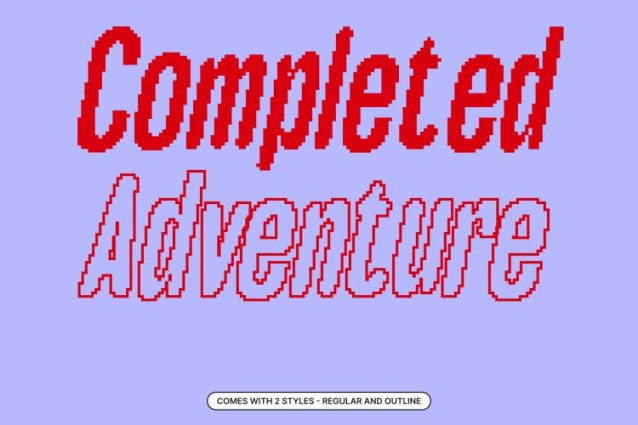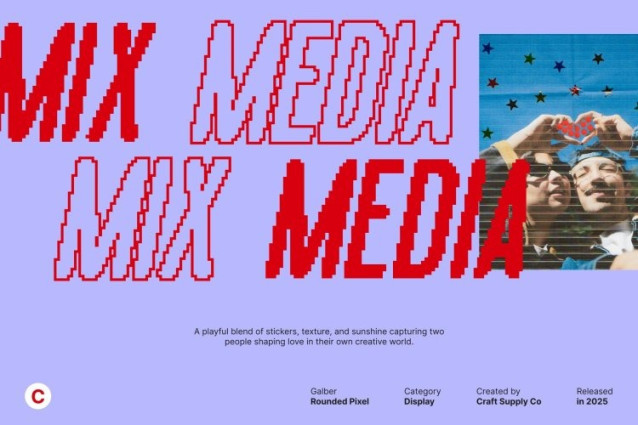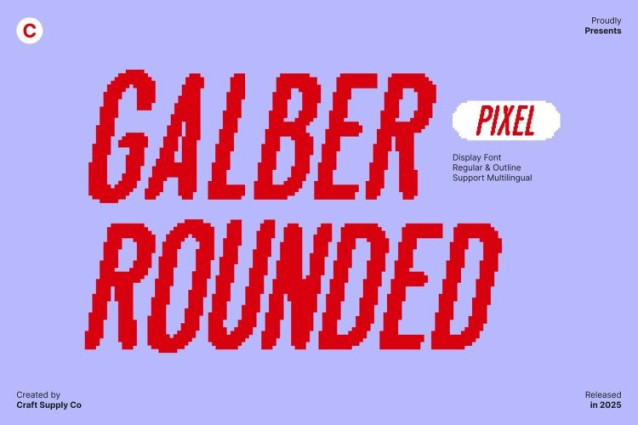
Galber Rounded Pixel Font
Galber Rounded Pixel Font This is a condensed sans serif font designed to deliver a sleek and contemporary visual presence. Its clean, narrow forms create an efficient and modern look, allowing your designs to feel structured, tidy, and effortlessly stylish. The rounded details soften the overall shape, adding warmth and approachability.
Rounded Pixel Style for Distinctive Character
The signature pixel styling enhances the font with a playful digital twist. Each rounded pixel element introduces texture and uniqueness, blending nostalgic digital aesthetics with modern design sensibilities. This combination gives the font a fresh, attractive appearance that stands out in both print and digital layouts.
Perfect for Modern, Eye-Catching Designs
This font works beautifully in logos, posters, branding, packaging, and creative displays. Its condensed width maximizes space efficiency, while the rounded pixel character adds visual interest, making your design pop without overwhelming the layout.
Fresh, Trendy, and Visually Engaging
This font brings together the clarity of sans serif structure, the friendliness of rounded forms, and the energy of pixel styling. This font offers a versatile, modern typeface that keeps your design looking lively, fresh, and unmistakably contemporary perfect for designers who want bold style with a digital edge.